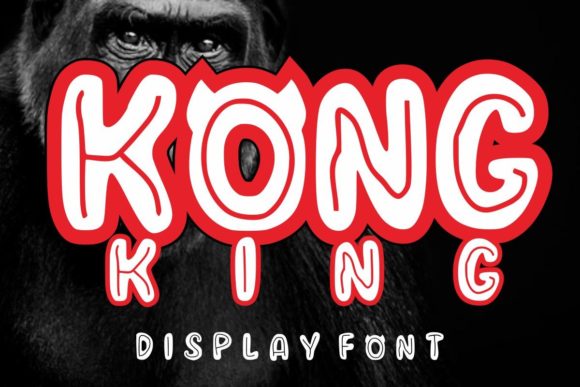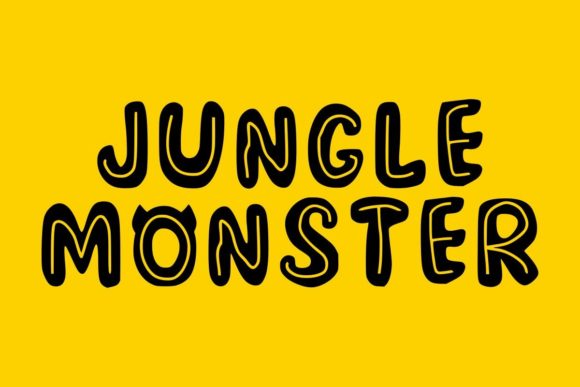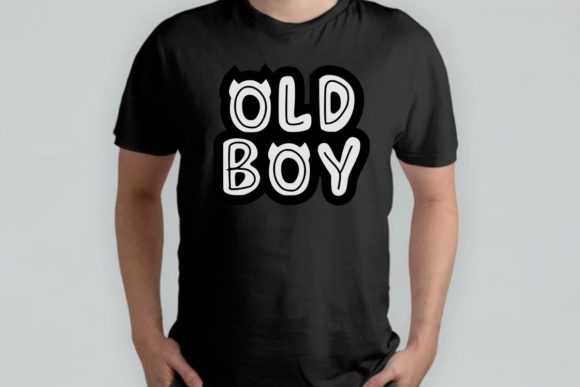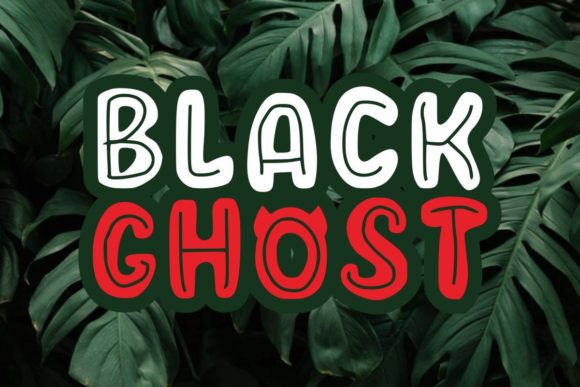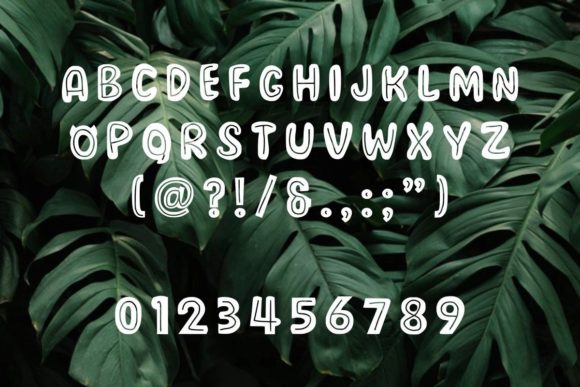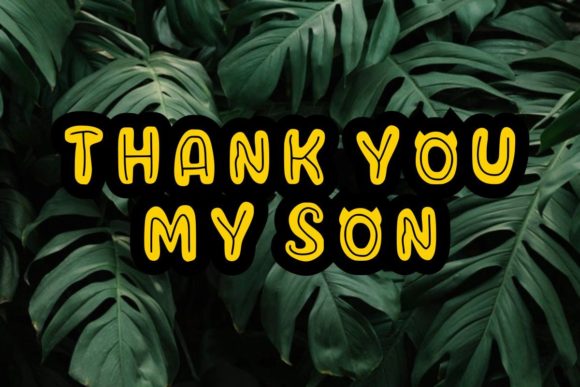
Introducing Ghost Buster Font: The Friendly and Modern Display Font
Are you looking for a font that adds a relaxed touch to your designs? Look no further than Ghost Buster Font! This friendly and modern display font is perfect for creatives who want to add a casual vibe to their work. In this article, we’ll dive into the features and benefits of Ghost Buster Font, and explore how it can elevate your designs.
The Characteristics of Ghost Buster Font
Ghost Buster Font is a display font that boasts an informal style and casual vibe. Its unique characteristics make it an excellent choice for designers and crafters who want to add a touch of personality to their work. Here are some of the key features of Ghost Buster Font:
- Modern and Friendly Design: Ghost Buster Font has a modern and friendly design that makes it perfect for a wide range of creative projects.
- Informal Style: The font’s informal style gives it a relaxed and casual feel that’s perfect for designs that require a laid-back touch.
- High Readability: Despite its casual vibe, Ghost Buster Font has high readability, making it easy to read and understand.
Benefits of Using Ghost Buster Font
So, why should you choose Ghost Buster Font for your designs? Here are some of the benefits of using this fantastic font:
- Versatility: Ghost Buster Font is versatile and can be used for a wide range of creative projects, from branding and advertising to packaging and digital media.
- Uniqueness: The font’s unique design sets it apart from other fonts, making it an excellent choice for designers who want to create distinctive and memorable designs.
Who Can Benefit from Ghost Buster Font?
Ghost Buster Font is perfect for a wide range of designers and crafters, including:
- Graphic Designers: Graphic designers can use Ghost Buster Font to create stunning visual designs that require a relaxed touch.
- Branding Experts: Branding experts can use the font to create unique and memorable brand identities.
- Crafters: Crafters can use Ghost Buster Font to add a personal touch to their handmade projects, such as signs, cards, and invitations.
- Digital Artists: Digital artists can use the font to create eye-catching digital art, such as posters, flyers, and social media graphics.
Ghost Buster Font is a friendly and modern display font that’s perfect for designers and crafters who want to add a relaxed touch to their work. With its informal style, casual vibe, and high readability, this font is versatile and can be used for a wide range of creative projects. Whether you’re a graphic designer, branding expert, crafter, or digital artist, Ghost Buster Font is an excellent choice for your next project.